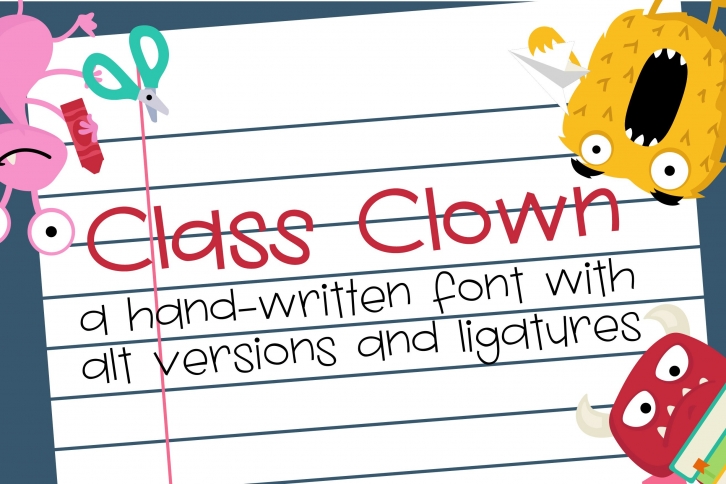
ZP Class Clown FONT Download
ZP Class Clown is a gorgeous font that was realeased on April 1, 2022. The font can be used in many style contexts and design environments. Perfect for invitations, magazines, websites, logos, and more! It was designed by Illustration Ink and the file size is 16.52 MB. Thanks for checking out this font!